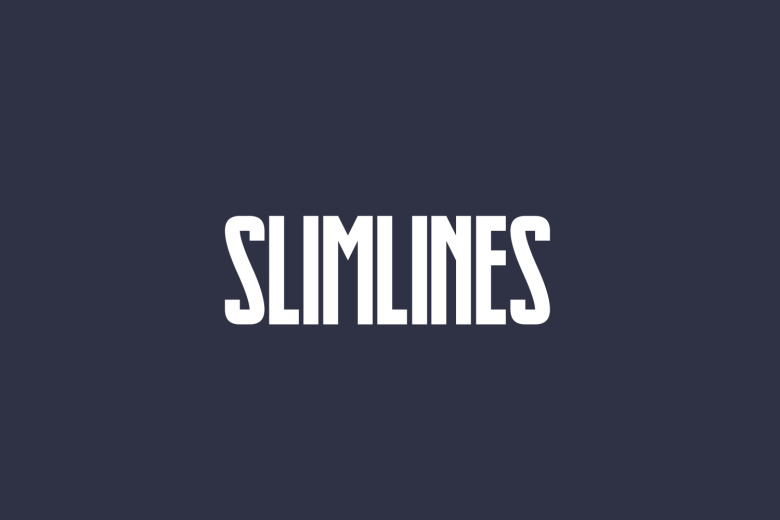
Slimlines Font
Slimlines is a high quality Sans serif font that is designed by Darrell Flood. Slimlines is a thin, tall font designed for maximizing horizontal space use. This font is perfect for tight headlines and magazine text!
Slimlines Sans Serif Font